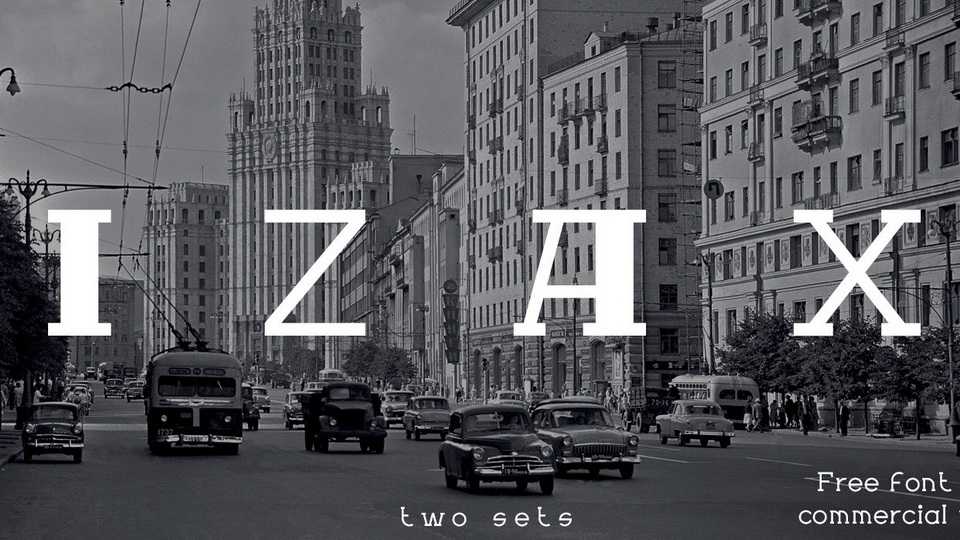
Download Izax font, a geometric slab serif typeface with retro aesthetics. Izax includes two styles, that are perfect for headlines, short texts and other display use.
Designer: Maxim Raikov